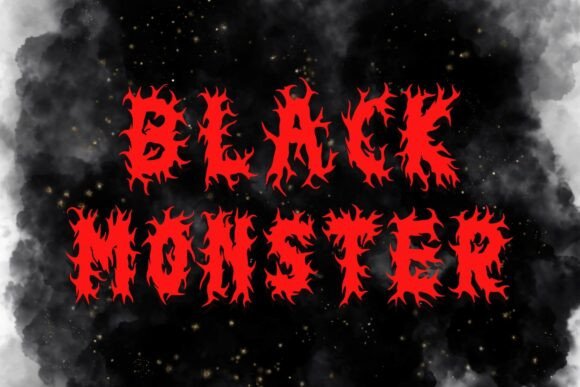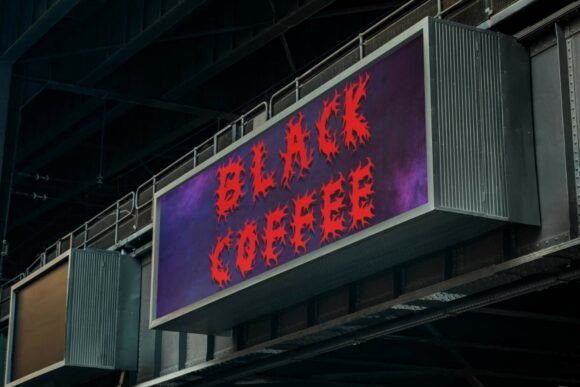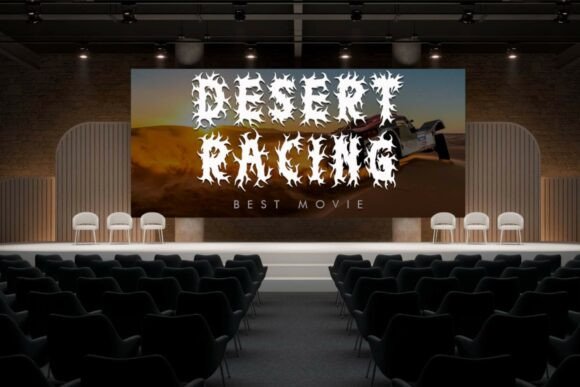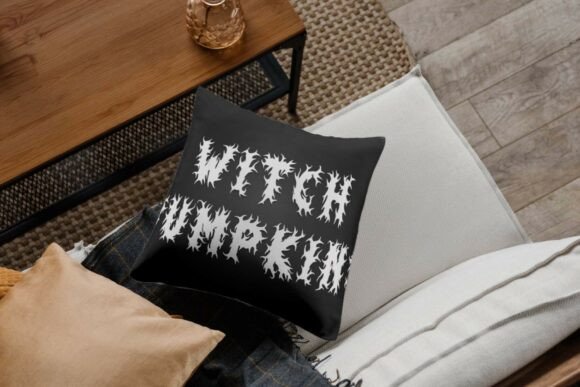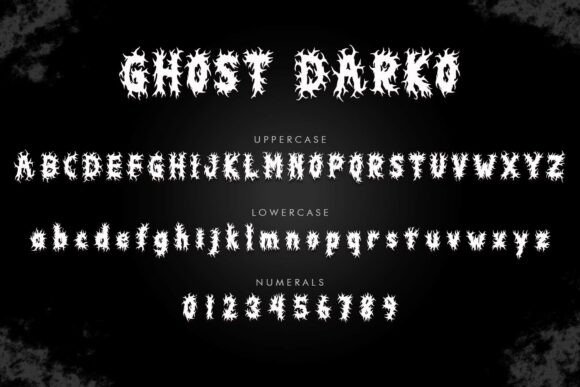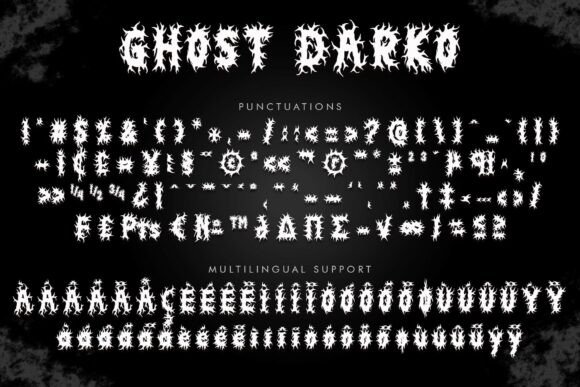
The Haunting Beauty of Ghost Darko Font: A Designer’s Dream
I’ll never forget the time I was working on a Halloween-themed project for a client, and I just couldn’t find the right font to capture the spooky essence I was going for. The client wanted something that would make their audience shiver with excitement, but not feel too over-the-top or cheesy. After hours of scouring through font libraries, I stumbled upon Ghost Darko Font, and it was love at first sight! ✨
Ghost Darko is a unique and spooky display font that has become a staple in my design toolkit. It features uppercase and lowercase letters, numbers, punctuation, and multilingual support, making it perfect for a wide range of creative projects. In this article, I’ll share my honest review of Ghost Darko Font, provide a practical guide on how to use it, and explore similar fonts that you might enjoy.
- 🎃 Spooky and unique design that’s perfect for Halloween, horror movie titles, and action-packed projects
- ✅ Multilingual support, so you can use it for projects that require non-English characters
- ✨ High-quality, crisp, and clean lines that make it perfect for printing and digital use
- 🤩 Tons of OpenType features, glyphs, and stylistic alternates to experiment with
While Ghost Darko Font is an amazing addition to any design project, there are a few things to keep in mind: ⚠️
- 🤔 Some characters may not work well in very small font sizes, so it’s best to use it for display purposes
- ⚠️ Limited suitability for body text, as it’s designed primarily for headlines and titles
While I couldn’t find any information on the designer’s personal story, it’s clear that Ghost Darko Font was created with a passion for the spooky and unknown. The font’s unique design and attention to detail make it a standout in any project.
Q: What type of projects is Ghost Darko Font best suited for?
A: Ghost Darko Font is perfect for Halloween, Christmas, book titles, horror movie titles, action movie titles, Procreate, banners, posters, prints, branding, stickers, logos, and more.
Q: Is Ghost Darko Font available in multiple languages?
A: Yes, Ghost Darko Font features multilingual support, making it perfect for projects that require non-English characters.
Q: Can I use Ghost Darko Font for body text?
A: While Ghost Darko Font is designed primarily for headlines and titles, it’s not recommended for body text due to its bold and decorative nature.